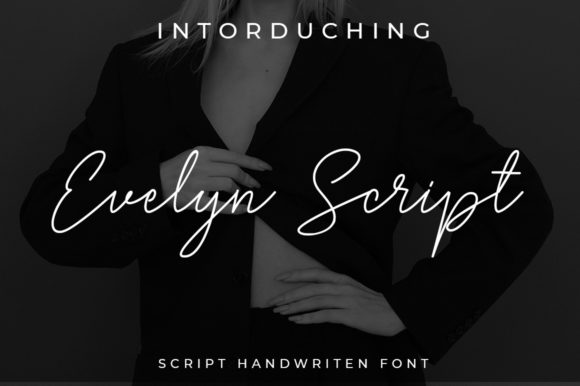
Evelyn Script Font: Elevate Your Designs with Elegance
In the world of typography, few fonts manage to strike a balance between elegance and modernity. However, the Evelyn Script Font is one of those rare gems that not only meets but exceeds expectations. This elegant, thin, and smooth handwritten font is designed to bring a touch of sophistication to any project. With its classy calligraphic influences and contemporary feel, Evelyn Script is poised to become your go-to choice for designs that demand a high level of refinement.
Characteristics of Evelyn Script Font
Evelyn Script Font is distinguished by its unique characteristics, which set it apart from other fonts in the same category. Here are some of its standout features:
- Elegant and Refined: The font boasts an elegant appearance, making it perfect for projects that require a sophisticated look.
- Thin and Smooth: Its thin and smooth strokes contribute to its refined aesthetic, ensuring that your designs look polished and professional.
- Handwritten: Despite its elegance, Evelyn Script retains a personal, handwritten feel, adding a touch of warmth and personality to your designs.
- Classy Calligraphic Influences: The font draws inspiration from traditional calligraphy, giving it a timeless appeal that works well across various design applications.
- Contemporary and Fresh: While rooted in classic calligraphy, Evelyn Script also has a contemporary edge, making it suitable for modern designs.
Versatile Applications of Evelyn Script Font
Evelyn Script Font’s versatility is one of its most compelling attributes. Its elegant and contemporary design makes it suitable for a wide range of projects, including:
- Wedding and Event Invitations: Add a touch of romance and sophistication to your wedding or event invitations.
- Branding and Logo Design: Elevate your brand’s visual identity with a font that exudes elegance and professionalism.
- Packaging Design: Stand out in the market with packaging that features elegant typography.
- Advertising and Marketing Materials: Capture your audience’s attention with sophisticated and refined advertising materials.
- Website and Blog Design: Enhance the user experience with a font that offers both readability and style.
Why Choose Evelyn Script Font?
Choosing Evelyn Script Font for your projects comes with numerous benefits, including:
- Uniqueness: Stand out from the crowd with a font that is both distinctive and memorable.
- Versatility: Use it across various design applications, from digital to print.
- Elegance: Add a touch of sophistication to your designs.
- Readability: Despite its elegance, the font maintains a high level of readability.
- Contemporary Appeal: Ensure your designs feel fresh and up-to-date.
Tips for Using Evelyn Script Font Effectively
To maximize the impact of Evelyn Script Font, consider the following tips:
- Pair with Complementary Fonts: Combine Evelyn Script with simpler fonts to create visual contrast.
- Use Appropriate Sizes: Ensure the font size is legible, especially for body text.
- Consider Line Spacing: Adjust line spacing to improve readability.
- Limit Usage: Use the font judiciously to maintain its impact.
Evelyn Script Font is a versatile and elegant typeface that can elevate your designs to new heights. With its unique blend of traditional calligraphy and contemporary style, it offers the perfect solution for designers looking to add a touch of sophistication to their projects. Whether you’re working on wedding invitations, branding, or website design, Evelyn Script is sure to make a lasting impression.